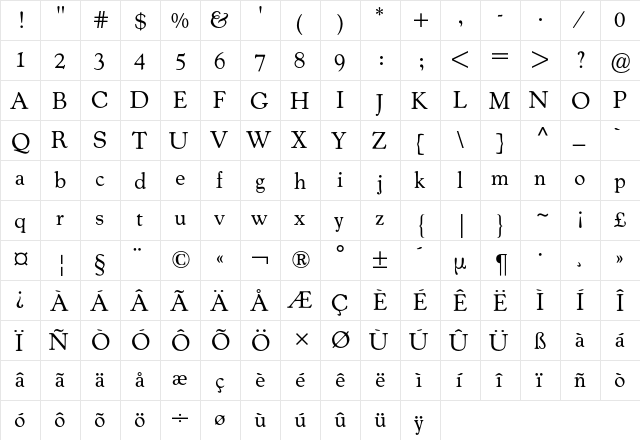
Cooper Old Style BQ Regular
Cooper Old Style BQ is a composed and adaptable typeface that performs quietly and consistently across a wide range of design contexts.